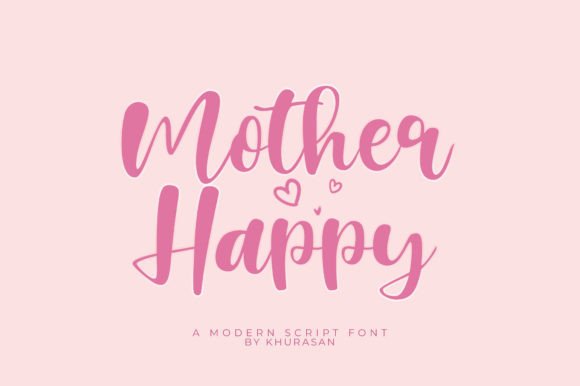
Unleash the charm and elegance of Mother Happy Font, a captivating script font designed to make your designs shine. With its graceful strokes and playful characters, Mother Happy Font adds a touch of warmth and sophistication to your creative projects.
Dive into a world of endless possibilities with Mother Happy Font. Express your individuality through eye-catching logos, create stunning posters that capture attention, and design book covers that exude a sense of mystery and allure. Let your imagination soar as you craft magazine layouts that resonate with your audience and create banners that demand attention.
Mother Happy Font is not just a font; it's an artistic expression, a tool to bring your creative visions to life. Whether you're a seasoned designer or just starting your creative journey, this font will elevate your work to new heights. Its versatility knows no bounds, adapting seamlessly to a myriad of projects, adding a touch of magic to each one.
So, embark on a creative adventure with Mother Happy Font and witness the transformation of your designs. Unleash your inner artist and let your imagination take center stage. The possibilities are endless, and the beauty you create will leave a lasting impression.